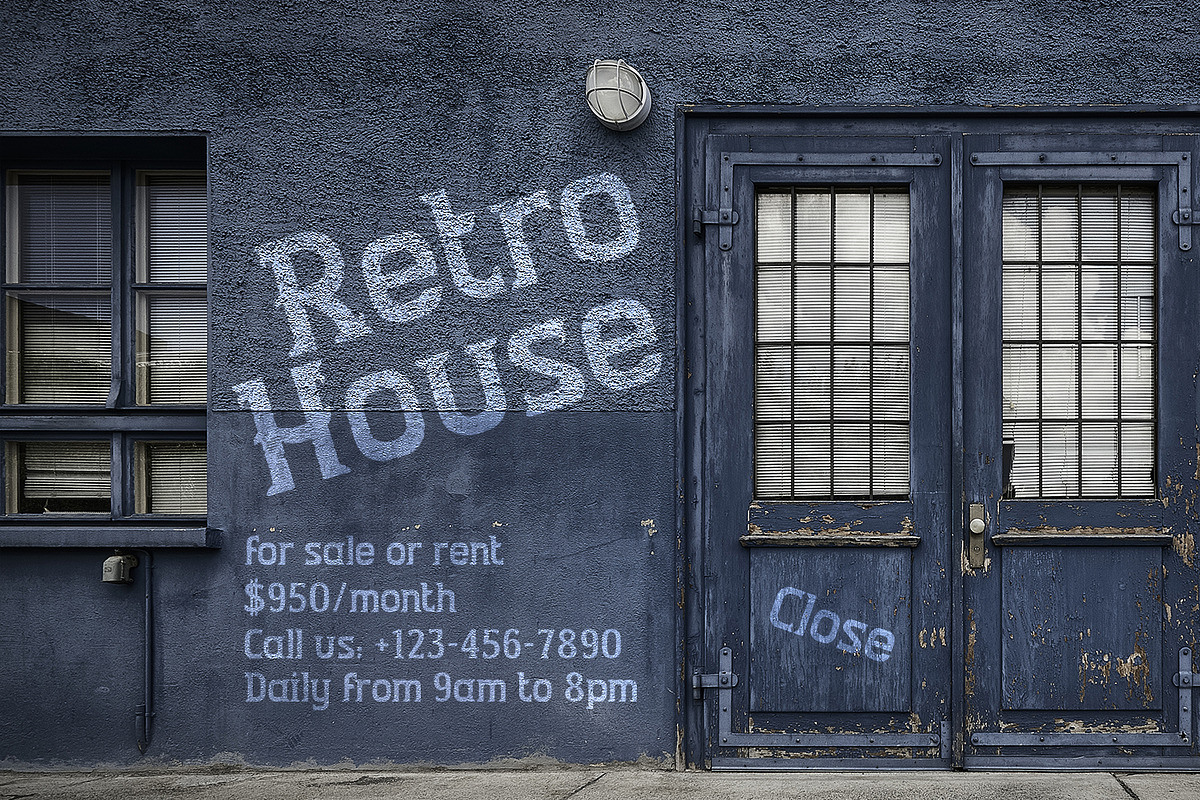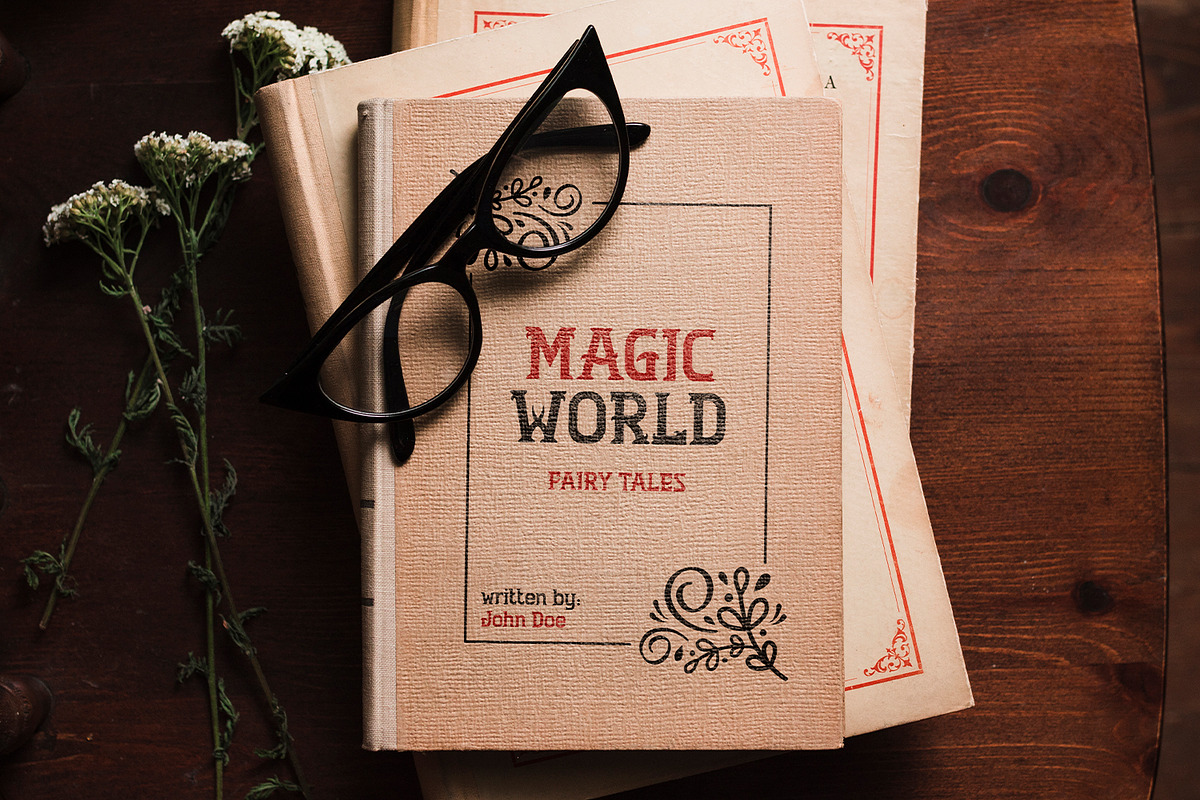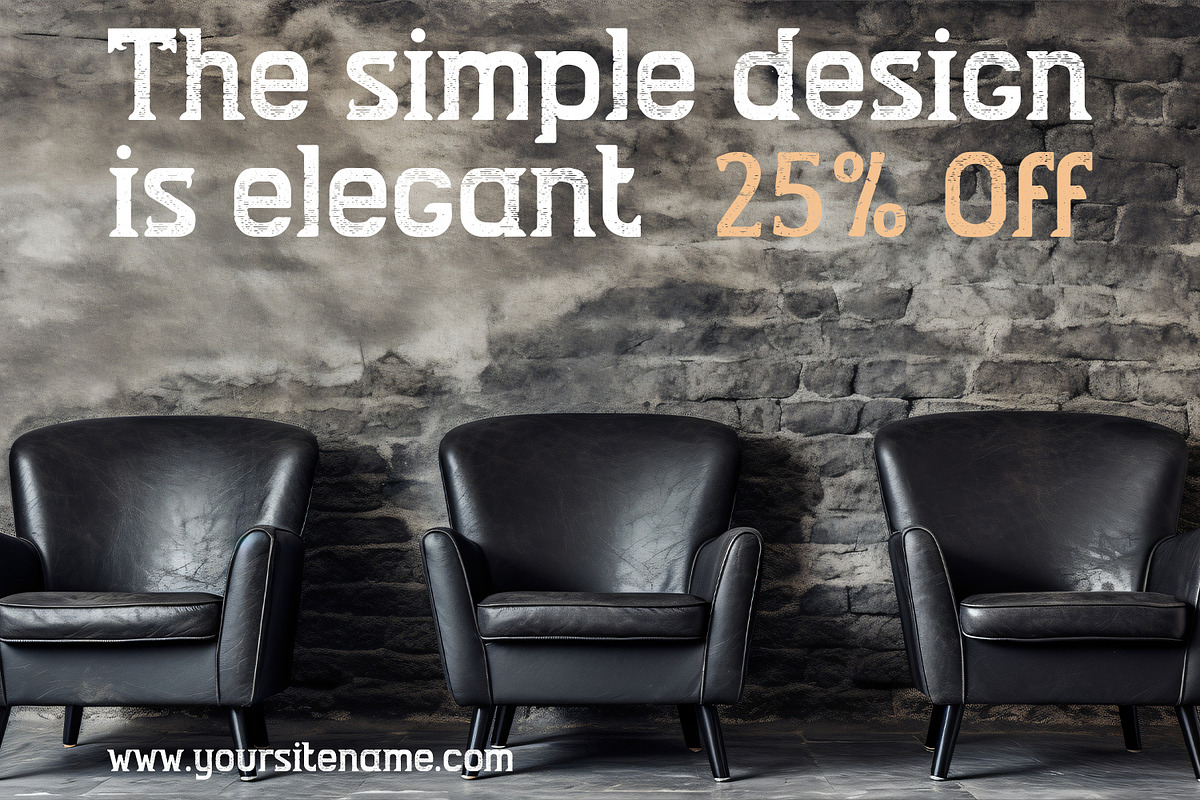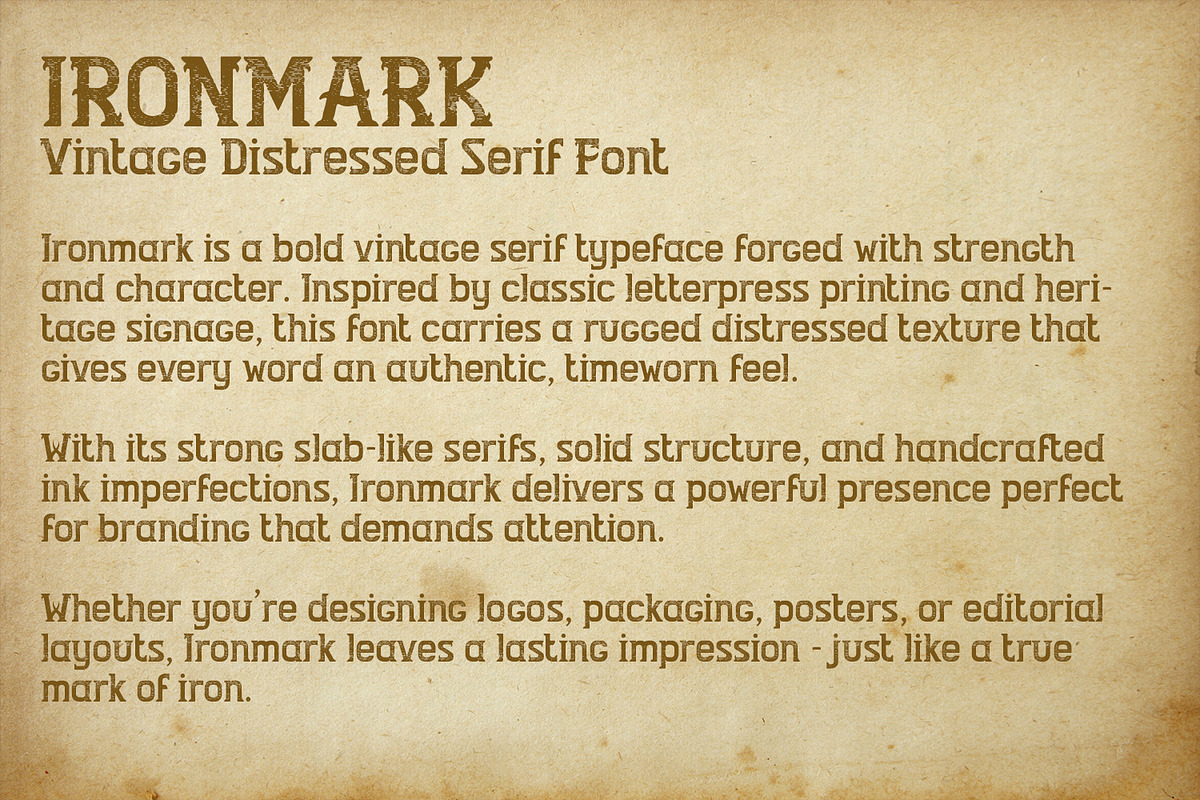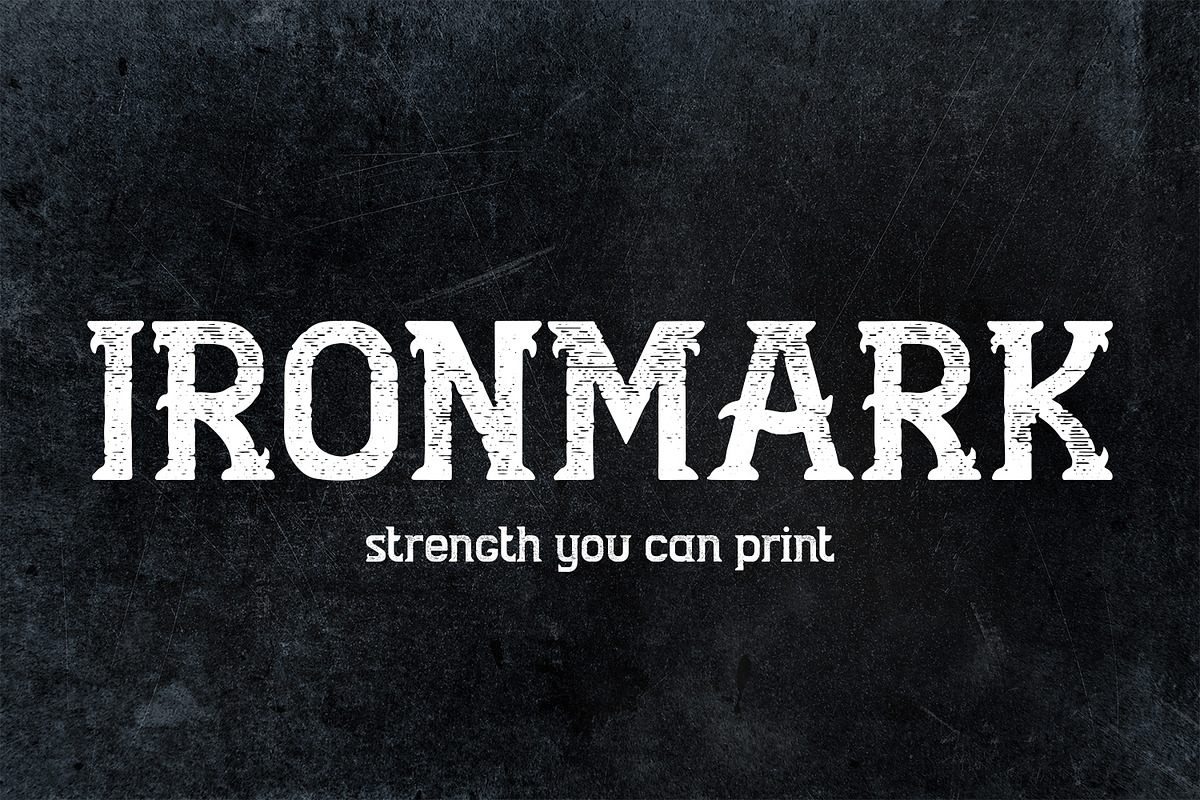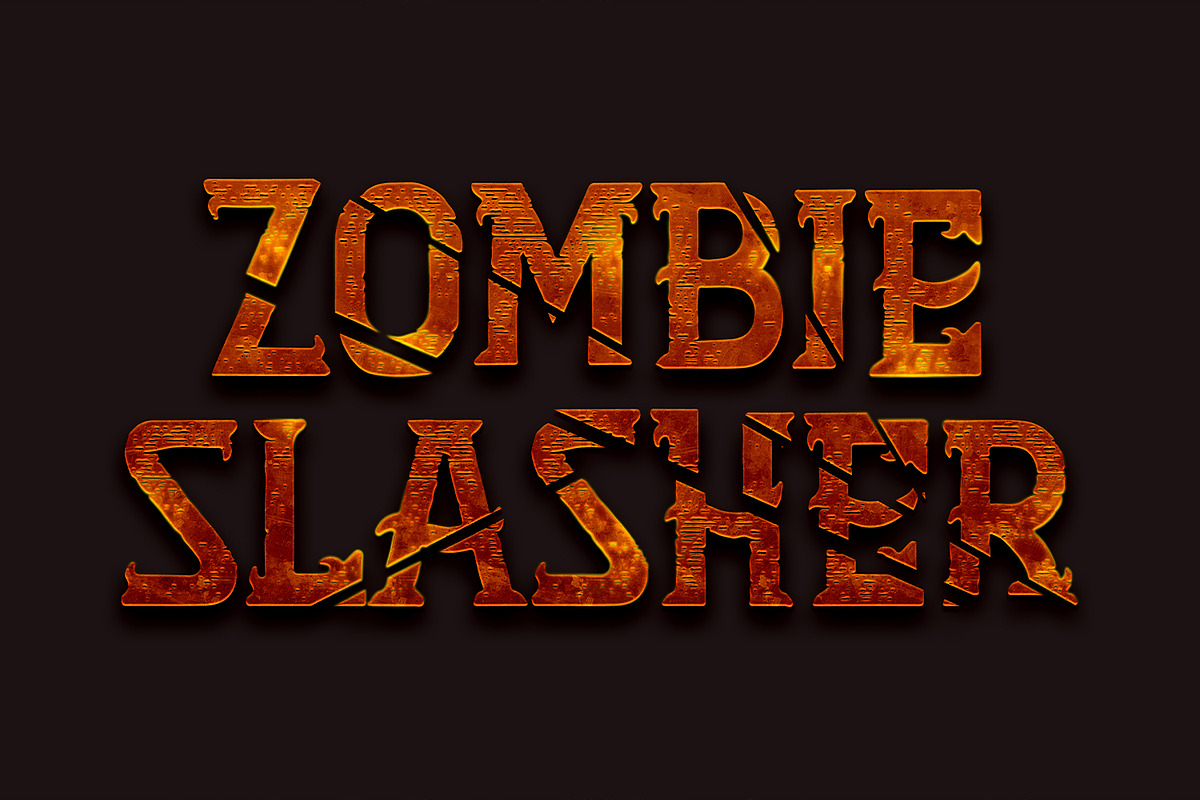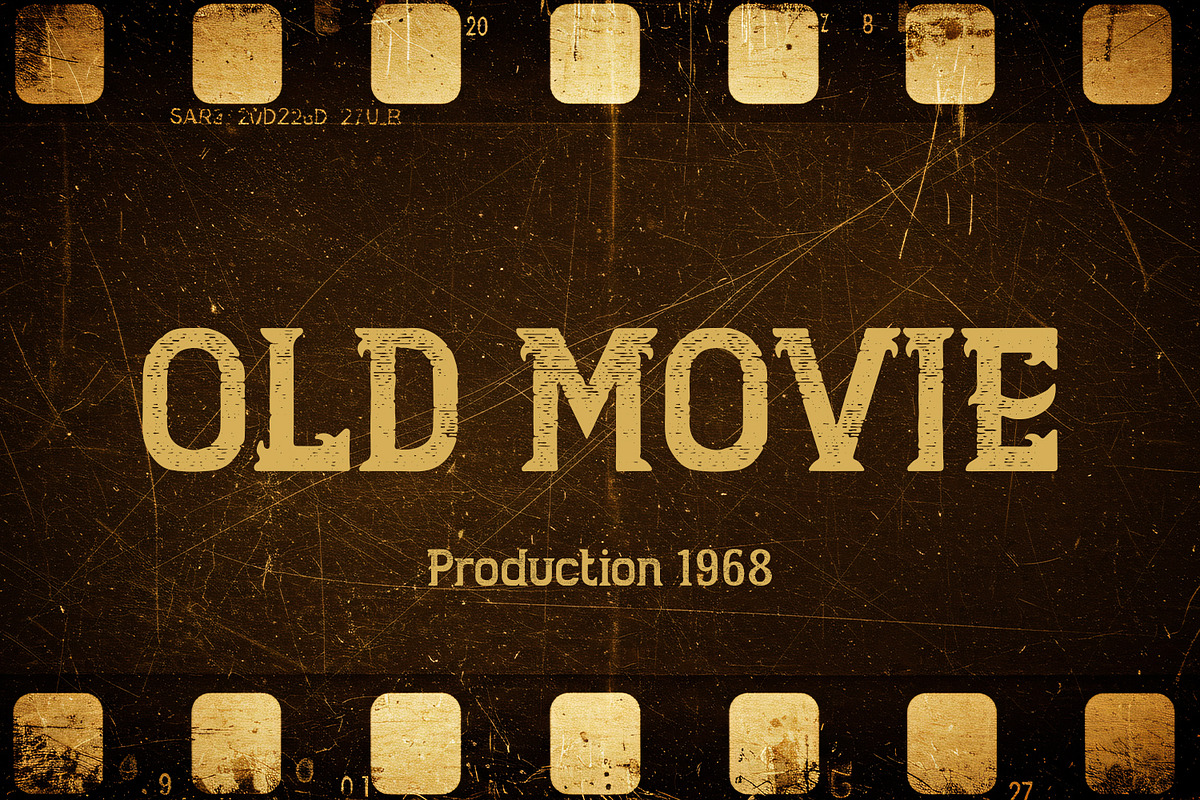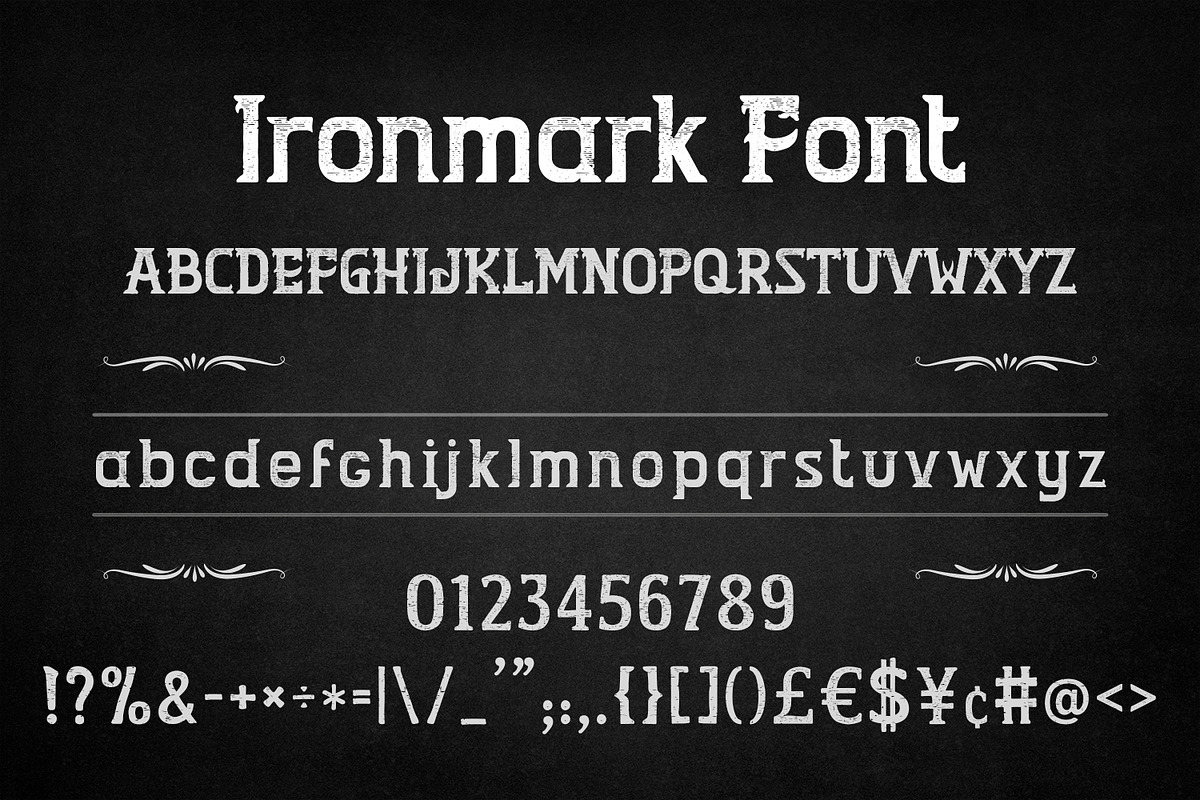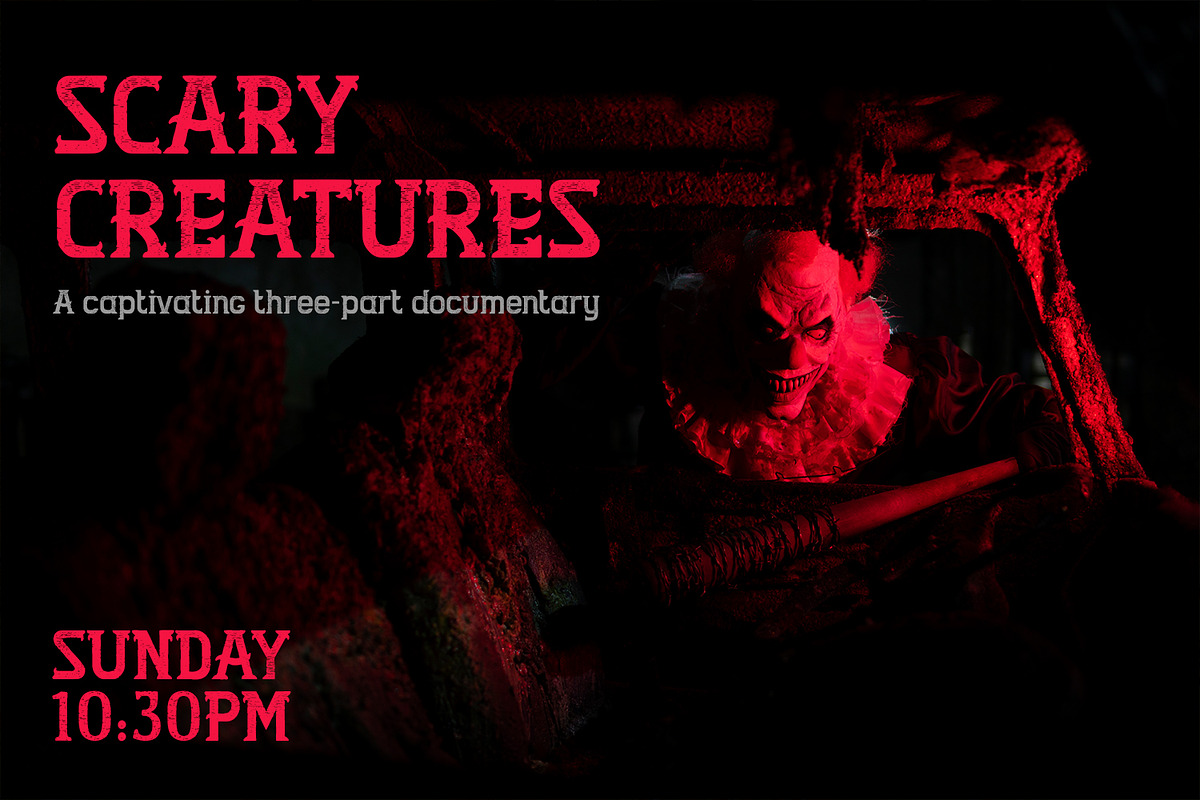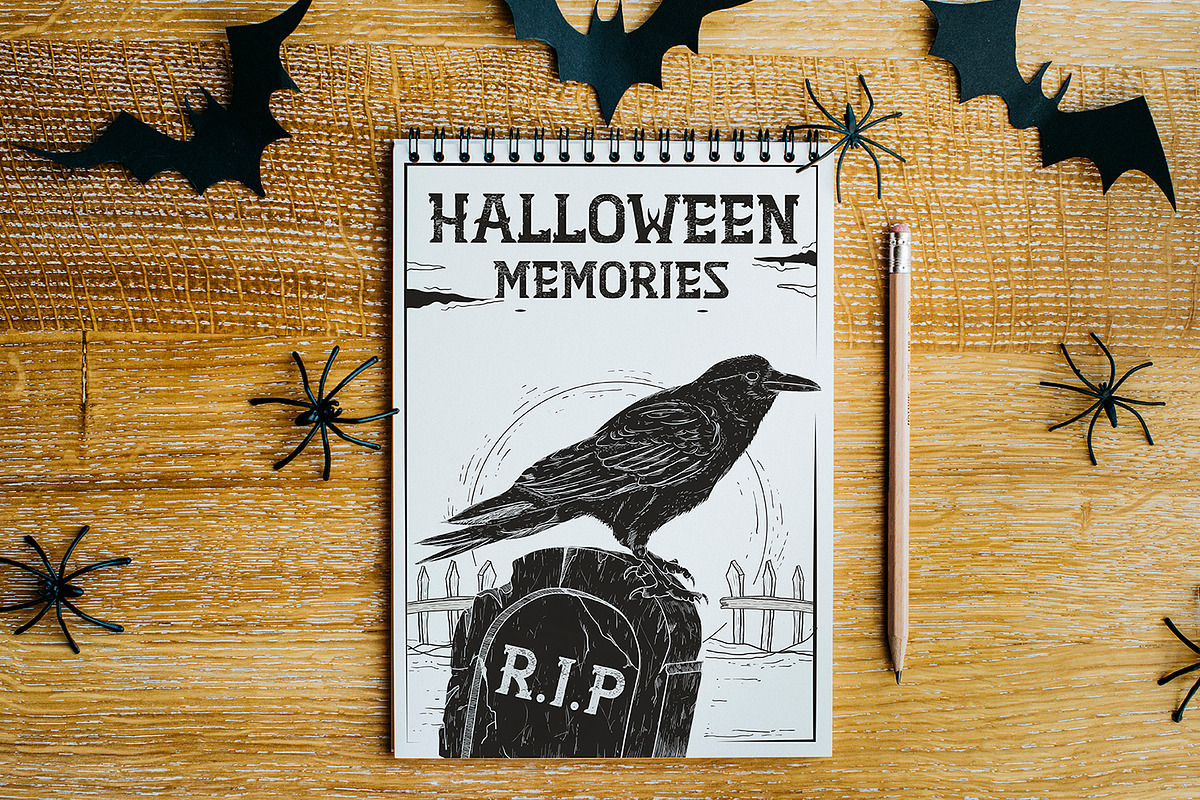
Ironmark – Bold Retro Letterpress
Ironmark is a bold vintage serif font inspired by classic letterpress printing, heritage signage, and old whiskey label typography. Designed with a rugged distressed texture, this typeface delivers an authentic handcrafted feel while maintaining strong readability and structure.
Its powerful serifs and solid letterforms make Ironmark perfect for logos, branding, packaging, posters, apparel, editorial headlines, and retro-style designs. Whether you're creating rustic brand identities or bold display typography, Ironmark brings strength, character, and timeless appeal to every project.
This font includes uppercase, lowercase, numbers, currency symbols, punctuation, and multilingual support, making it a complete display solution for professional designers.